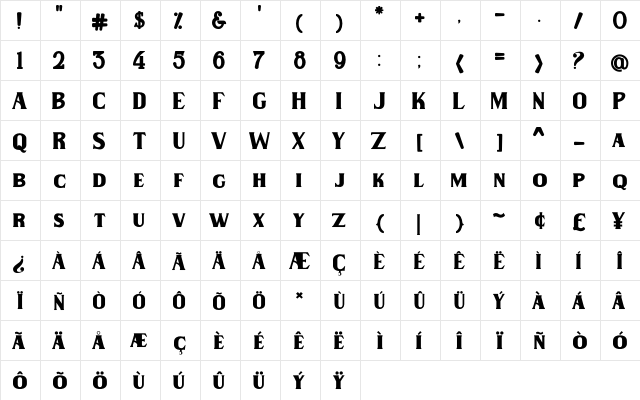
Wilson hawk Regular
Design Context for Wilson hawk Typeface
Wilson hawk is a composed and adaptable typeface that performs quietly and consistently across a wide range of design contexts.